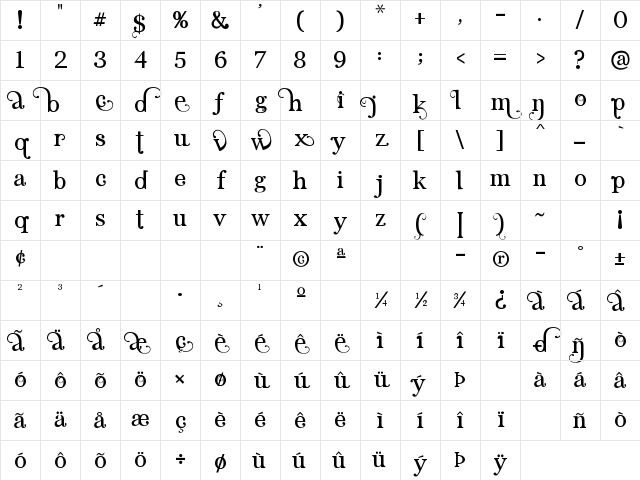
Angelic Serif Regular
Design Context for Angelic Serif
Angelic Serif carries the refined structure of traditional serif typography, with bracketed terminals and considered proportions that communicate credibility and craft.
Pro Tip: Use Angelic Serif for editorial body copy and considered headline work. Pair with a neutral sans for UI elements or captions to create a classic hierarchy.